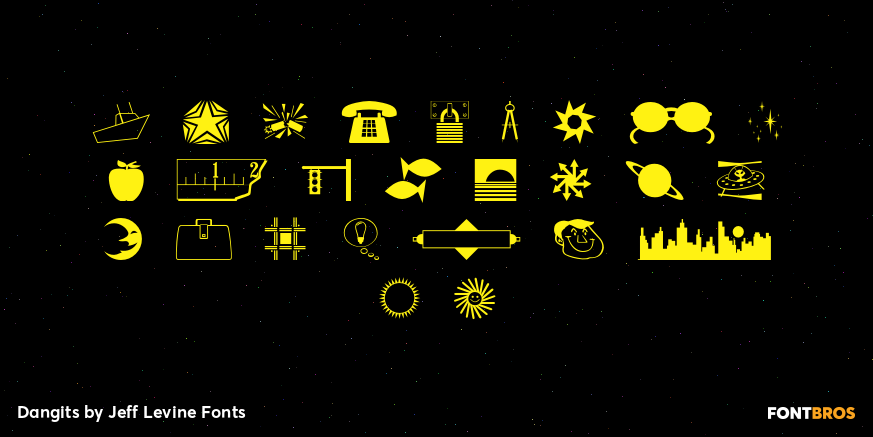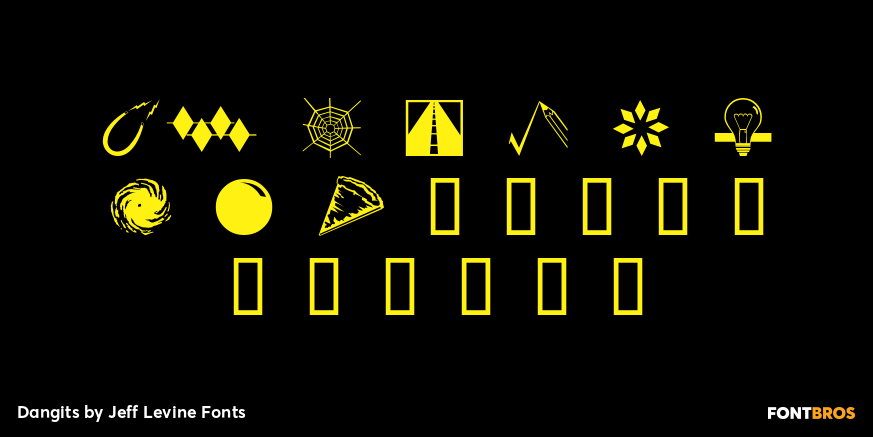
Dangits
Dangits JNL is another collection of images from Jeff Levine's early dingbat fonts, all cleaned up and improved for the professional designer's needs.